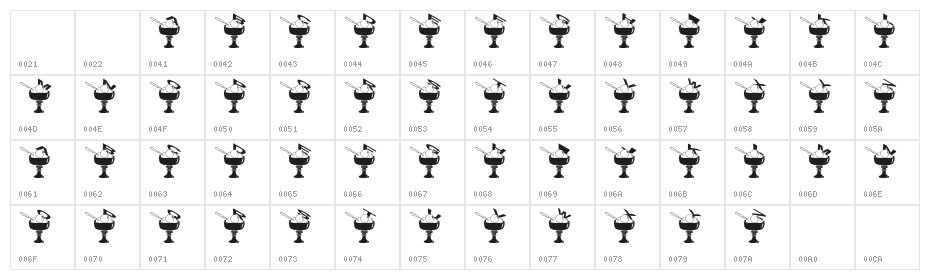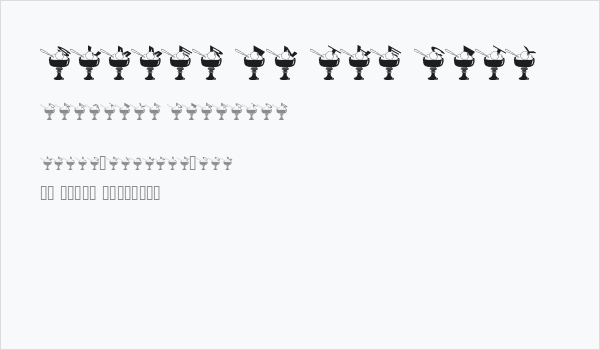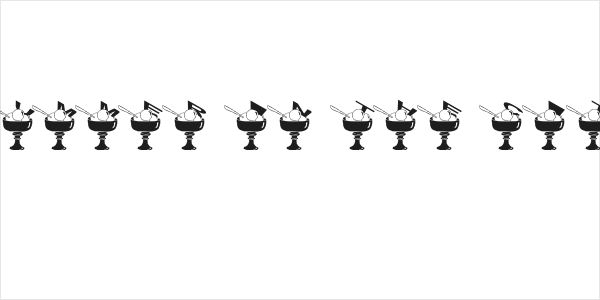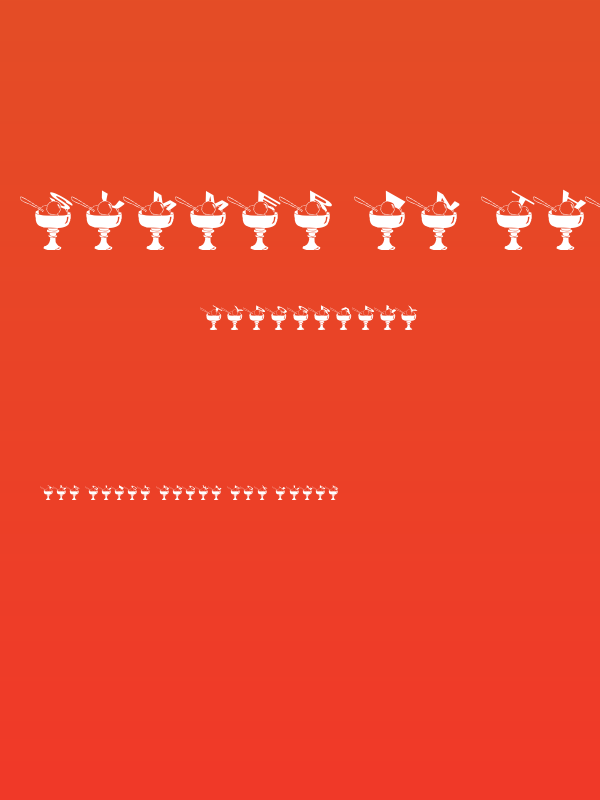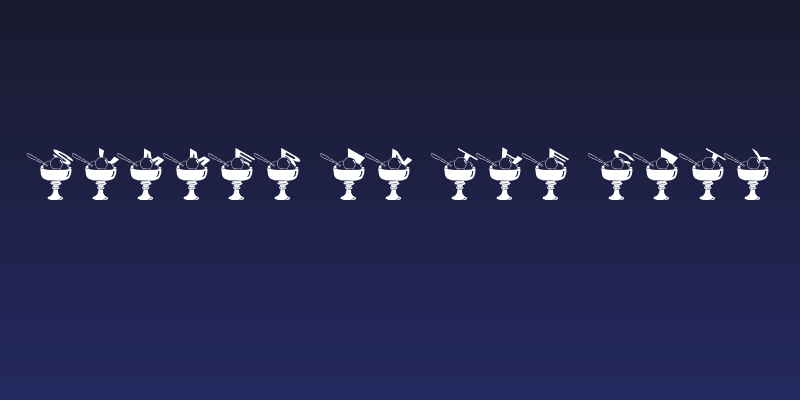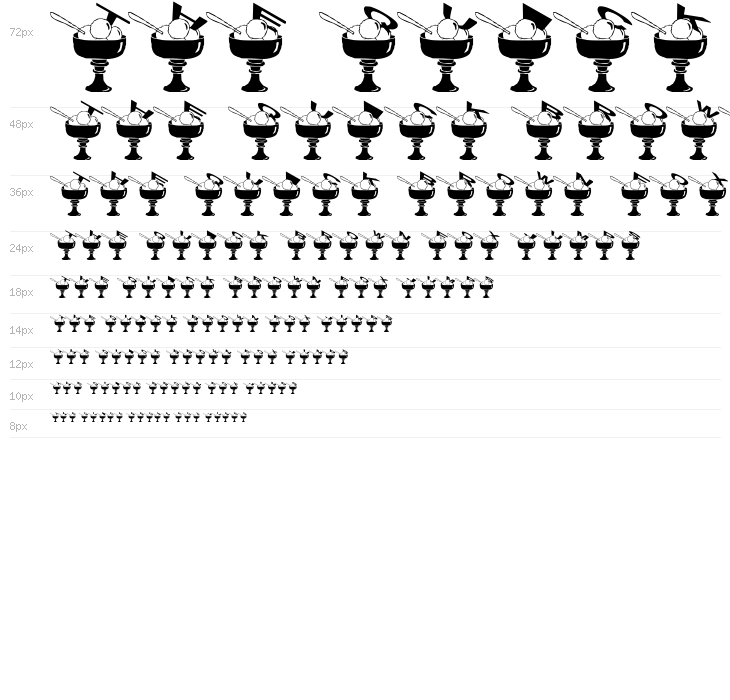
Summer in the city Font
Summer in the city Description
A playful decorative font where each character is represented by an illustrated ice cream sundae with a flag and spoon, creating a whimsical and summery feel. Numbers and symbols are depicted as outlined rectangles, maintaining a consistent visual motif.
| Overall Style | Decorative, Playful, Whimsical |
| Use Case | Headlines, Posters, Logos, Themed Events |
| Proposed Projects | ChildrenΓ’β¬β’s party invitations, summer event posters, ice cream shop branding, playful merchandise, seasonal social media graphics. |